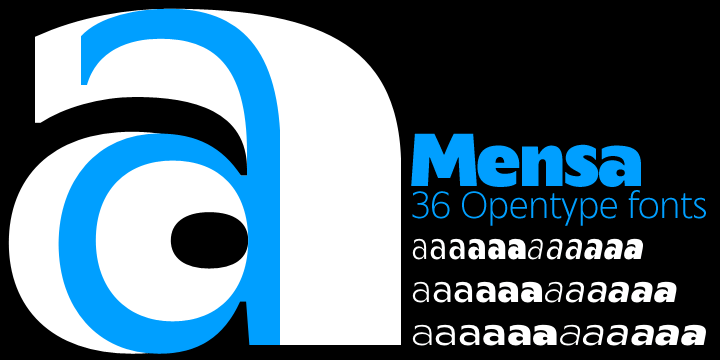
The Mensa Font is perfect for academic institution branding, intellectual society publications, educational conference materials, research center logos, scholarly journal headers, university presentation slides, think tank documentation, intellectual property firms, and academic achievement certificates.
What makes the Mensa Font so exciting is its intellectual sophistication that instantly communicates scholarly excellence and academic authority. This distinguished typeface embodies the analytical precision and intellectual rigor that defines high-level academic discourse, creating an immediate impression of intelligence and scholarly credibility. The font's mensa character communicates the intellectual depth and academic excellence that education-focused businesses need to attract audiences who value scholarly achievement and seek intellectually challenging experiences rooted in academic tradition and educational excellence.
The Mensa Font family includes Regular weight featuring complete uppercase and lowercase character sets, comprehensive numerical collections, essential punctuation marks, and academic symbols that maintain the scholarly aesthetic throughout your educational and intellectual design projects.
Academic institutions and intellectual organizations consistently choose Mensa Font Free Download for projects that require authentic scholarly appeal and intellectual communication. This exceptional typeface excels in environments where establishing academic credibility and intellectual authority is crucial for attracting students, scholars, and intellectually curious audiences who value educational excellence and rigorous academic standards. The font's mensa character helps communicate the quality and intellectual rigor that academic audiences expect from established educational institutions and credible scholarly organizations.
The distinctive qualities of Mensa Font reflect the distinguished traditions of academic excellence where intellectual rigor, scholarly precision, and educational achievement create meaningful learning experiences and lasting intellectual development. Each character demonstrates the careful attention to detail and intellectual discipline that characterizes successful academic institutions and scholarly enterprises. The font's proportions and spacing create perfect balance between intellectual authority and accessible communication that modern educational businesses require for effective academic engagement and scholarly credibility.
Contemporary educational enterprises appreciate how Mensa Font communicates academic authenticity and intellectual excellence. Whether designing materials for universities, creating branding for research institutions, or developing marketing for educational services, this font delivers the scholarly character that distinguishes authentic academic excellence from commercial education providers. The typeface works exceptionally well for organizations emphasizing intellectual rigor, academic achievement, and the sophisticated appeal of genuine scholarly excellence and educational quality.
The versatility of Mensa Font extends across multiple academic applications and intellectual marketing initiatives. Research universities utilize its scholarly character for academic publications and institutional communication materials. Educational consultancies choose it to communicate their expertise in academic excellence and intellectual development strategies. Professional development organizations rely on its authoritative appearance to attract professionals seeking advanced intellectual training and scholarly continuing education.
Digital academic platforms benefit from Mensa Font's optimized performance across various educational applications and scholarly communication channels. The font maintains its mensa character whether displayed on university websites, mobile educational apps, or high-resolution academic presentations. This technical reliability ensures consistent brand presentation across all academic communication platforms and intellectual engagement scenarios.
The psychological impact of Mensa Font resonates with audiences who value intellectual achievement and seek educational experiences that challenge their minds and expand their knowledge. The typeface serves as a visual promise of academic excellence and intellectual rigor that helps educational businesses build lasting relationships with students and professionals who appreciate scholarly depth and intellectual challenge. This connection to academic achievement and intellectual excellence makes it invaluable for establishing credible educational brand identities.
Academic marketing specialists and educational design professionals recognize Mensa Font as an essential tool for authentic scholarly branding. The font captures the essence of intellectual excellence while making academic authority accessible to contemporary educational businesses who want to communicate their commitment to scholarly rigor, intellectual development, and the distinguished appeal of genuine academic excellence in today's competitive educational marketplace.